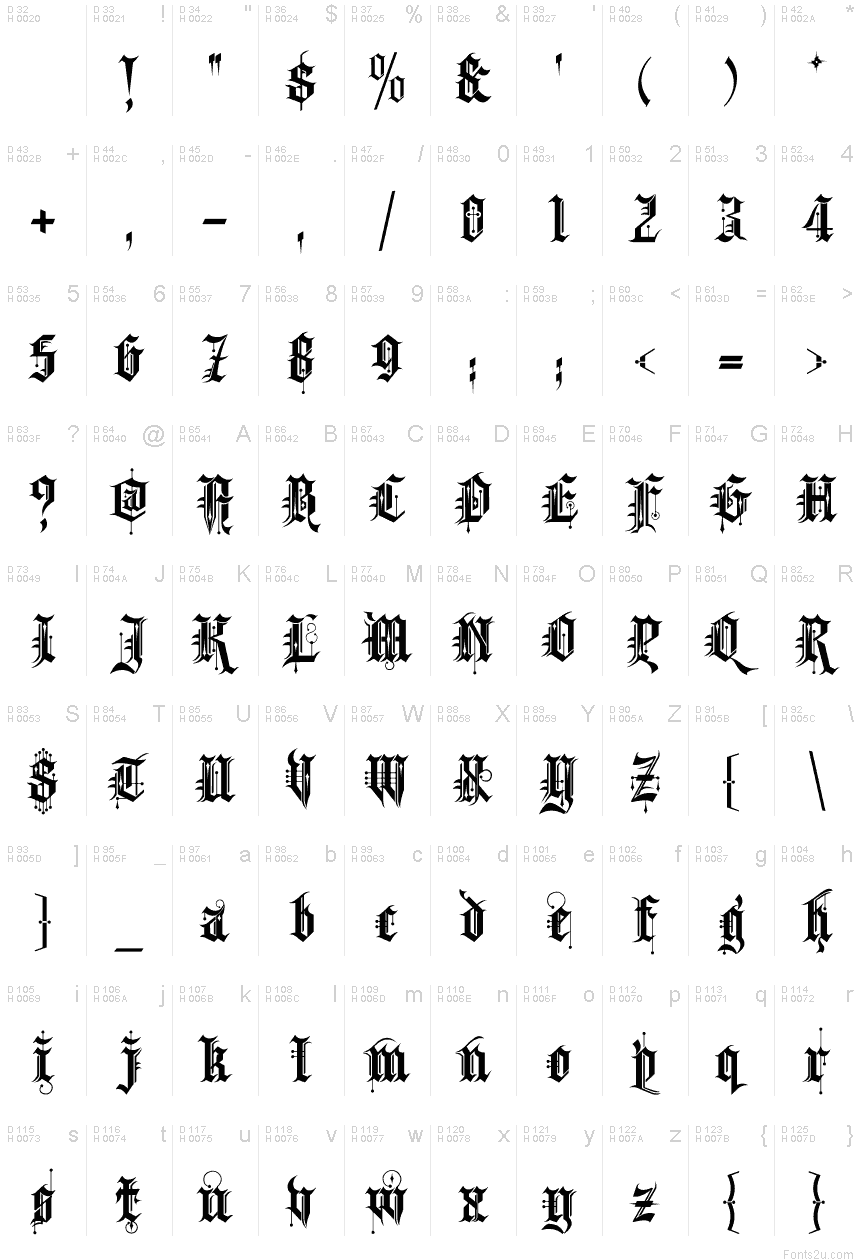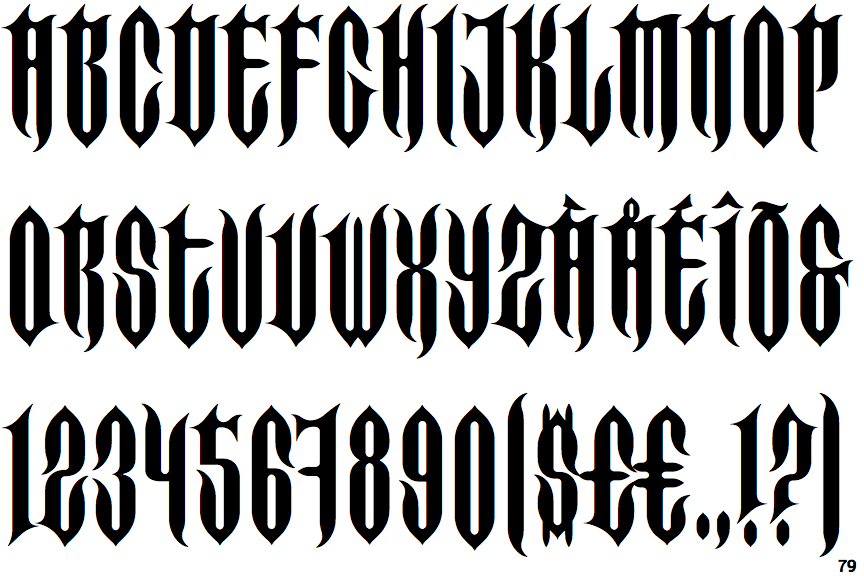
Spike Fonts. We have 13 free spikes fonts to offer for direct downloading · 1001 fonts is your favorite site for free fonts since 2001 Spike was designed as a latin type family, with the characteristic triangular serifs, but with more character and range of weights than the more common latin faces available.
Spike Was Designed As A Latin Type Family, With The Characteristic Triangular Serifs, But With More Character And Range Of Weights Than The More Common Latin Faces Available.
For All Your Pointy, Spiky And Stingy Needs.
For all your pointy, spiky and stingy needs. Oh and because i hate engravers old english! Browse by popularity, category or alphabetical listing.